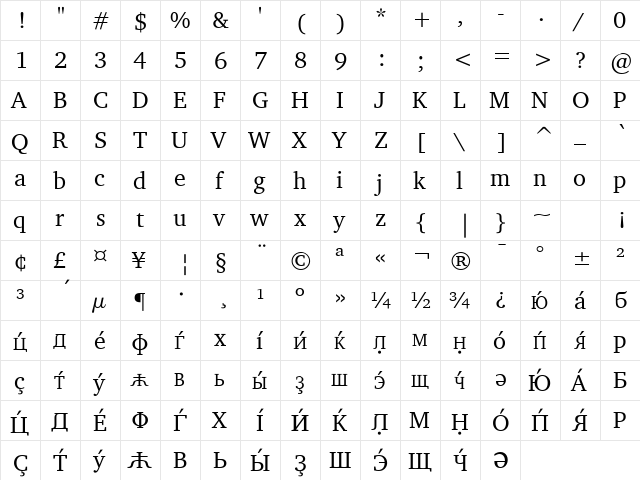
LeedsCyr Koi8_2 Normal
Design Context for LeedsCyr Koi8_2 Typeface
LeedsCyr Koi8_2 offers clean, dependable letterforms without strong stylistic allegiance, making it a practical choice for designers who need flexibility.